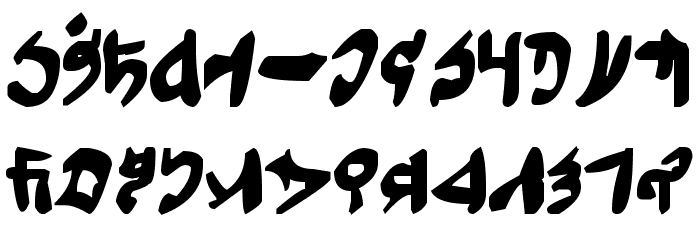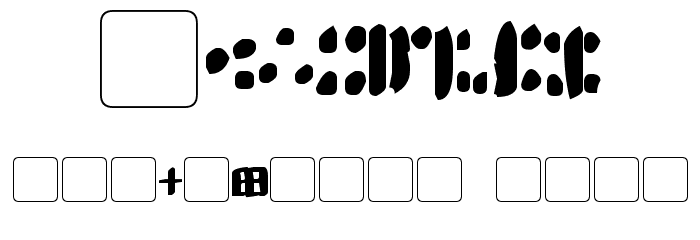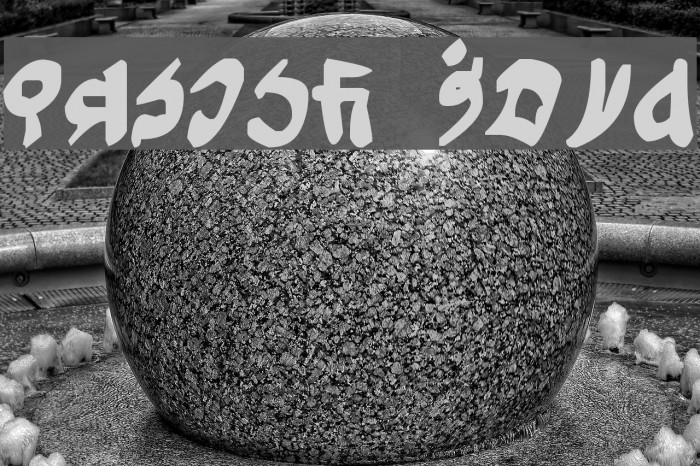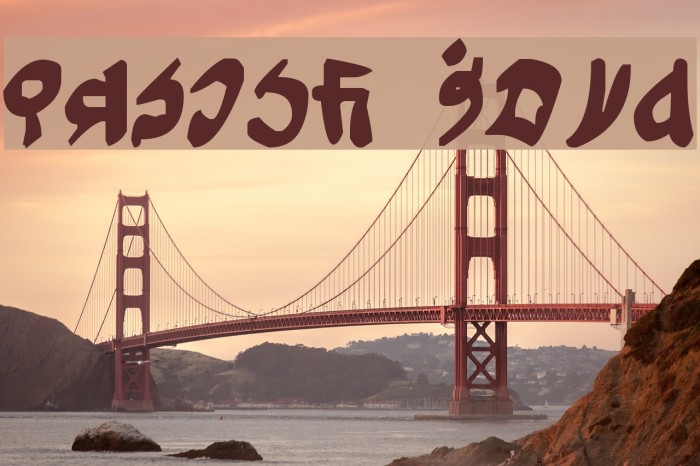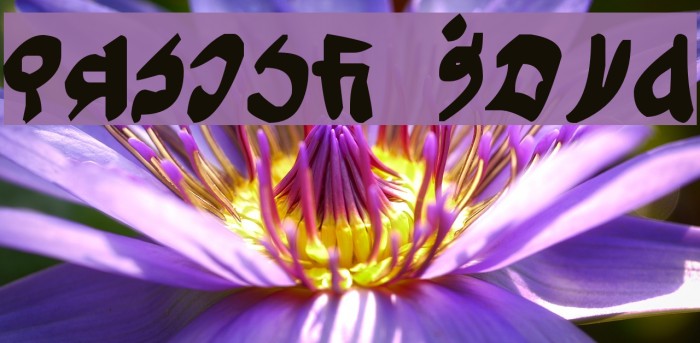
Tuigan Bold Font
This font features a bold and dynamic style with a strong presence. The characters are designed with a unique, angular form that gives them a futuristic and abstract appearance. The strokes are thick and consistent, providing a sense of strength and stability. The overall design is highly decorative, making it suitable for projects that require a distinctive and eye-catching typeface. The font's style is reminiscent of ancient scripts, yet it maintains a modern twist, making it versatile for various creative applications.
A bold, angular, and decorative font with a futuristic and abstract style.
- Proposed Projects: Ideal for video game titles, sci-fi movie posters, branding for tech companies, and any project needing a bold, unique typeface.
- Overall Style: Modern, Decorative